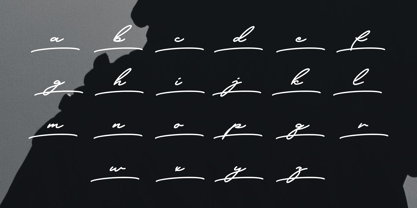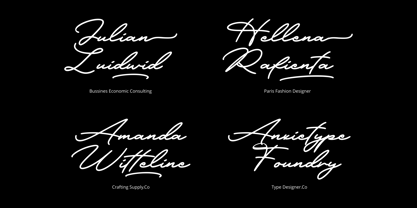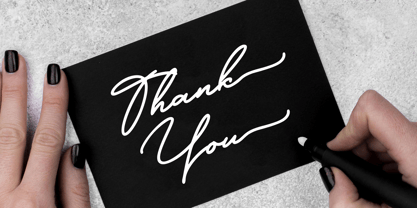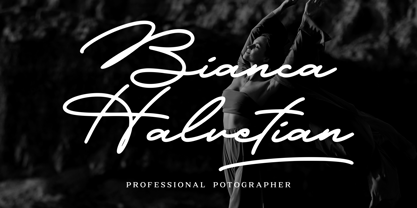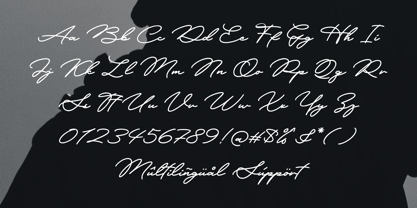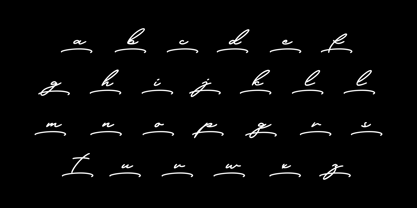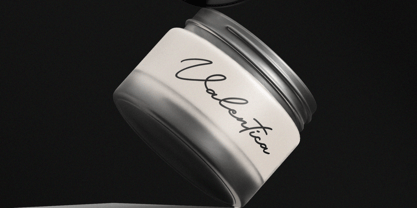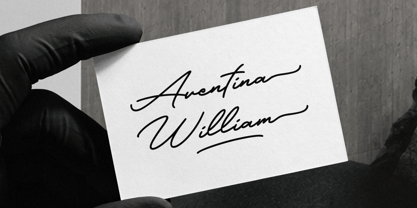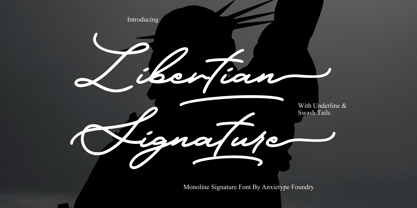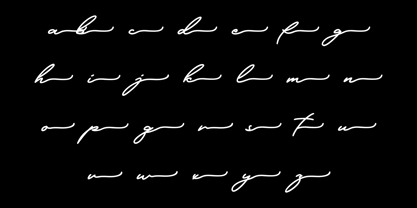
Libertian Signature
von Anxietype Foundry
Die Schriftfamilie Libertian Signature wurde von Annas Rifky Anhar entworfen und von Anxietype Foundry veröffentlicht. Libertian Signature enthält 1 Stile. Mehr über diese Familie
Experience the chic elegance of Libertian Signature, a pristine monoline signature font that embodies luxury and sophistication. With its flawless design and smooth contours, this font exudes a modern flair, making it perfect for logo design, branding, and sophisticated packaging. It delivers the refined aesthetic needed for professional and business applications while retaining a delicate charm that is ideal for elegant wedding invitations, stationery, and creative crafting projects. Libertian Signature is also perfect for company logos, personal branding, product packaging, social media designs, and adding a sophisticated touch to minimalist compositions. Combining timeless elegance with versatile functionality, Libertian Signature is your go-to font for refined and expressive designs.
Designer: Annas Rifky Anhar
Foundry: Anxietype Foundry